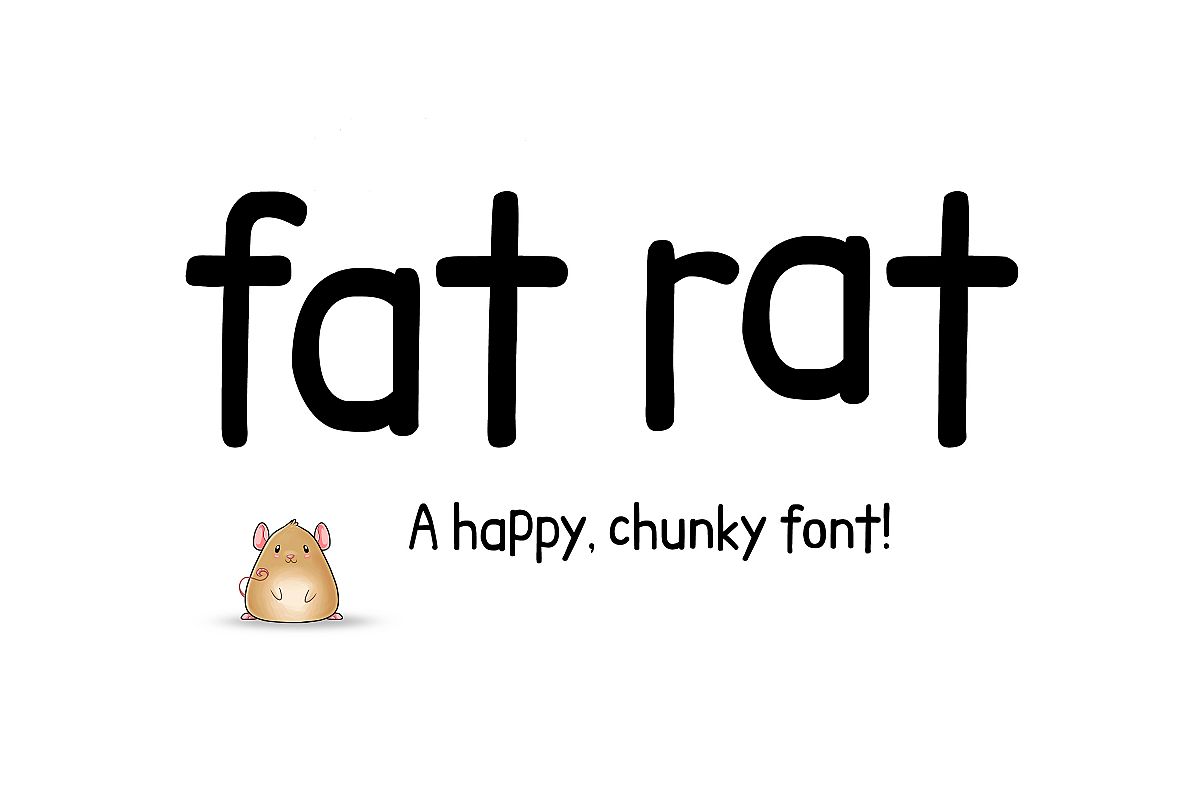
Fat Rat Font - a happy, chunky brush sans serif craft font
Fat Rat - the hand written brush sans serif font!
A great craft font for cutting machines, thick enough for decals and iron ons!
-  All upper and lower case letters playfully designed
-  Multi lingual support with all Western European diacritics
-  Chunky, fat, and uneven
-  Additional stylistic alternatives and ligatures!
-  Great for crafts and cutting machines!
Zulu